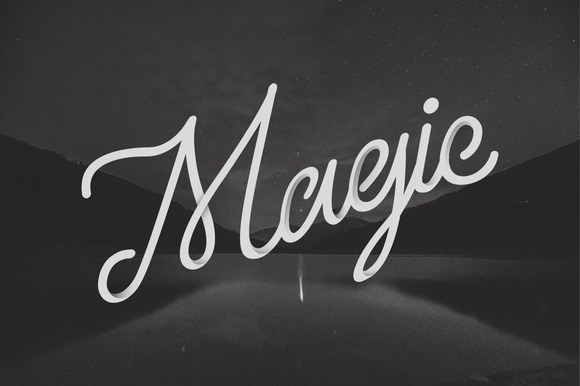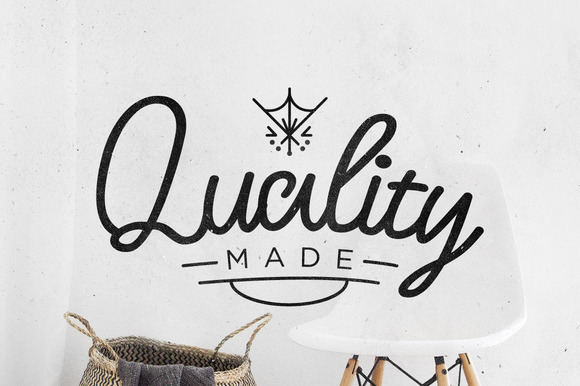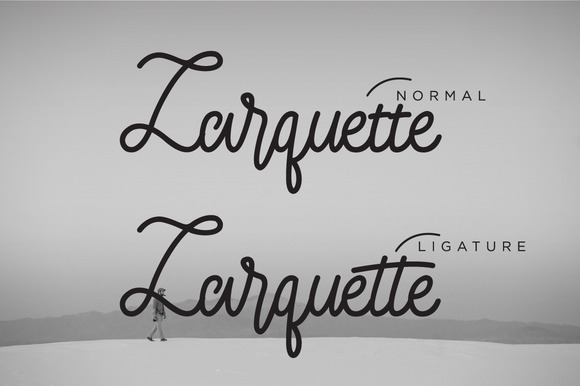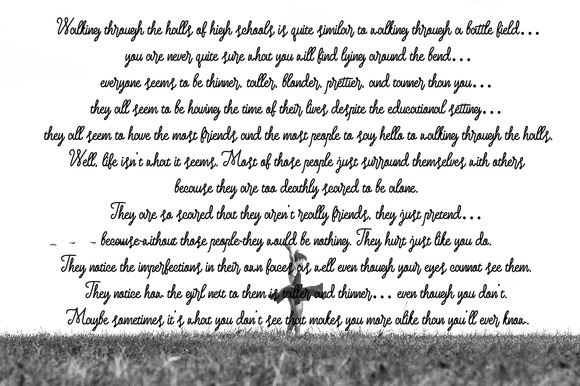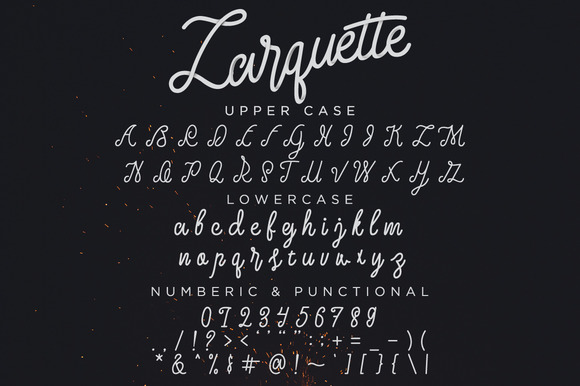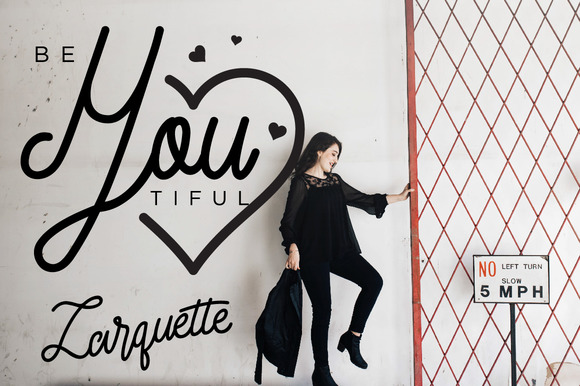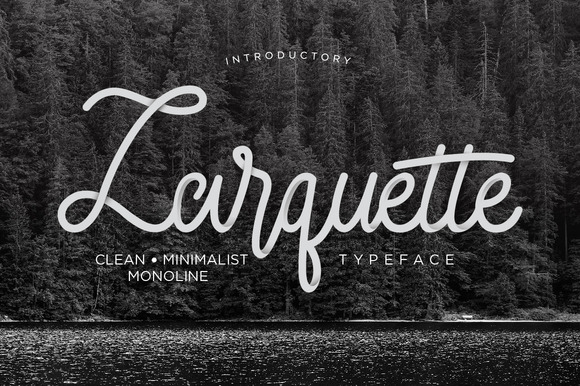
Larquette Typeface
Intoductory Larquette Typeface
is a modern typeface script with monoline basic so nice looking, keep it simple typeface and clean but with a new modern touch. Larquette is very usefull for any project like a quotes, poster, wedding invitation, stationary, bussiness card, sign, actually for anything project.